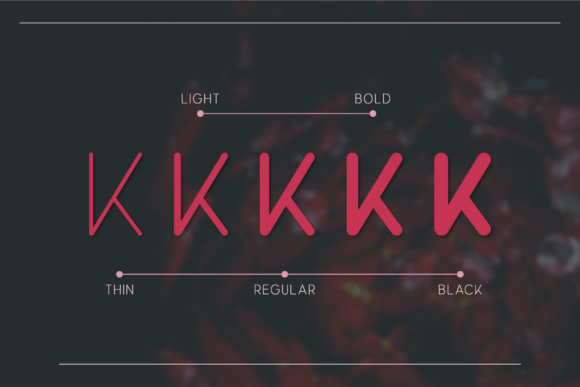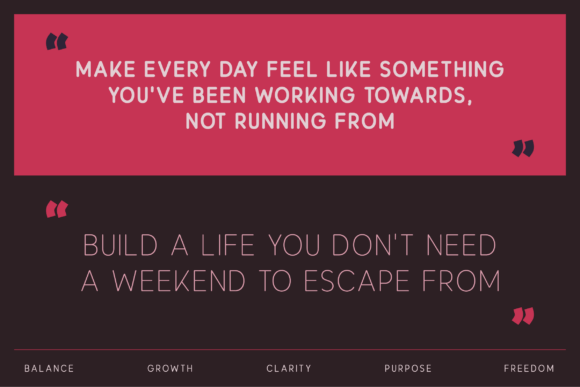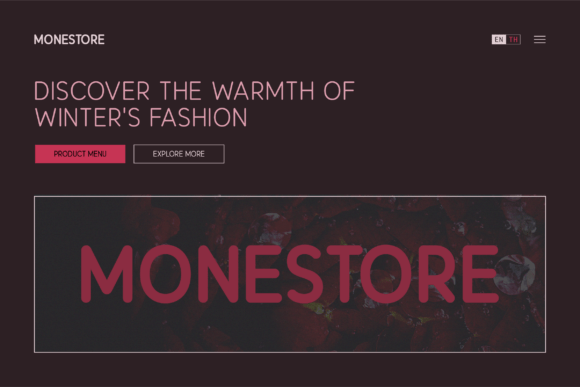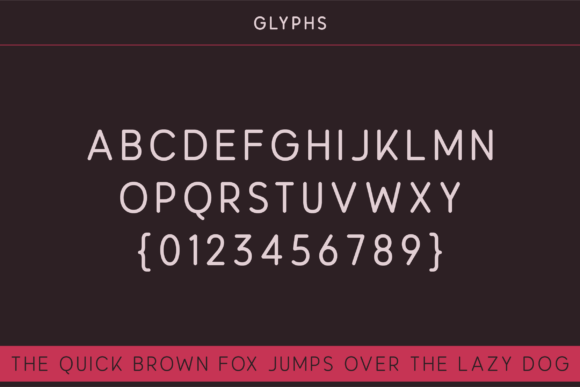
Unlocking the Perfect Blend of Clarity and Personality in Your Designs
Have you ever stared at a blank page, trying to come up with the perfect font to capture the essence of your brand or creative project? We’ve all been there – the pressure to create something unique, yet relatable, can be overwhelming. But what if you could find a font that effortlessly balances clarity and personality, making your designs shine with a touch of warmth and sophistication?
Enter Celestique Rounded Font, a modern all-caps sans serif font family designed to bring your creative visions to life. With its soft-rounded edges and sleek, geometric construction, this versatile font family adapts beautifully to any project, from logos and packaging design to social media visuals and high-impact headlines. Whether you’re a seasoned designer or a crafty entrepreneur, Celestique Rounded Font is your key to unlocking a clean yet friendly visual identity that truly reflects your brand’s unique personality.
Celestique Rounded Font Key Features
- Font Style: A rounded sans-serif font, ideal for creating a friendly and approachable feel.
- Character Set: Supports a wide range of languages, including Latin, Cyrillic, and Greek alphabets, making it suitable for global applications.
- Unique Characteristics: Features subtle rounded corners and smooth lines, creating a visually appealing and modern aesthetic.
- Font Weight: Offers a range of font weights, from Light to Bold, allowing for flexibility in design and typography.
Celestique Rounded Font Review
I recently had the chance to work with the Celestique Rounded Font, and I must say it’s been an interesting experience. Here are my thoughts on what works well and what doesn’t.
- Unique rounded design: The font’s rounded edges give it a distinctive, friendly feel that’s perfect for brand identities and design projects that need a touch of whimsy.
- Legibility: Despite its rounded design, Celestique Rounded Font is surprisingly easy to read, making it a great choice for body text and longer passages.
- Variety of weights: The font comes in a range of weights, from light to bold, giving designers plenty of options for creating visually appealing typography.
- Not ideal for small text: Due to its rounded design, Celestique Rounded Font can become difficult to read when used in small sizes.
- Limited language support: The font only supports Latin-based languages, which may limit its use in projects requiring multilingual support.
Celestique Rounded Font is a fun, versatile font that’s perfect for designers looking to add a touch of personality to their projects. While it has its limitations, it’s a great choice for brand identities, packaging, and other design applications where a friendly, approachable feel is desired.
Celestique Rounded Font: A Practical Application Guide
Tips for Getting the Most Out of Celestique Rounded Font
For the best results, use Celestique Rounded Font for headings and titles, and a clear sans-serif font for body text. You can also experiment with different font sizes and colors to create visual hierarchy and emphasis.
Celestique Rounded Font is ideal for:
- Web design and UI elements
- Print materials and business cards
Alternatives to Celestique Rounded Font
Lato is a sans-serif font designed by Łukasz Dziedzic. It is a clean and modern font suitable for a wide range of designs, from corporate to digital products. Use Lato for body text and headings where you need a clear and readable font.
Comparison to Celestique Rounded Font: Lato is more geometric and clean compared to the rounded and elegant Celestique Rounded Font. It is a good choice when you need a font that is easy to read in smaller sizes.
Merriweather is a classic serif font designed by Eben Sorkin. It is a elegant and sophisticated font suitable for traditional and formal designs. Use Merriweather for body text and headings where you need a font that exudes professionalism.
Comparison to Celestique Rounded Font: Merriweather is a more formal and traditional font compared to the rounded and playful Celestique Rounded Font. It is a good choice when you need a font that conveys a sense of sophistication and elegance.